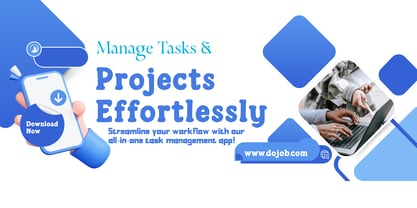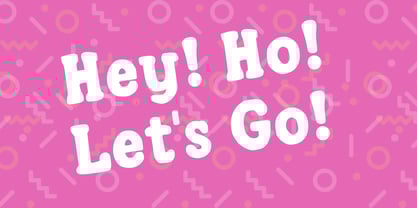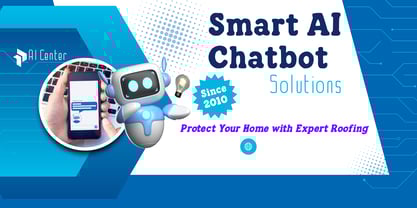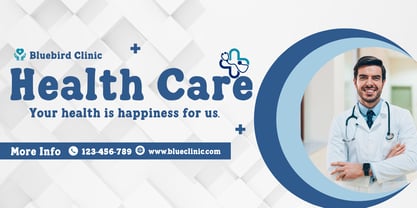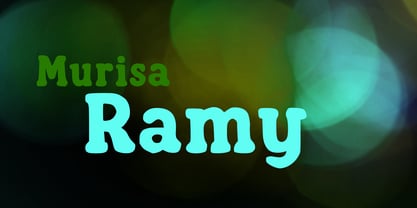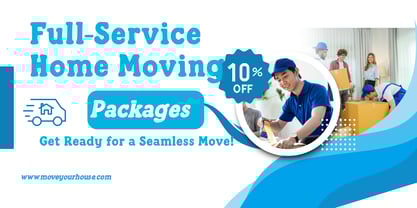
Murisa Ramy
🔥 Murisa Ramy – Bold Expression Meets Playful Precision
Murisa Ramy is a graffiti-inspired display font that blends bold character with playful elegance. Designed with rounded contours and a confident stance, this typeface brings a unique personality to any creative project. Whether you're crafting urban fashion designs, eye-catching posters, or standout branding, Murisa Ramy delivers impact with style.
✨ Features:
• Full uppercase & lowercase alphabet
• Clean, stylized numerals (0–9)
• Bold rounded style for maximum legibility and visual punch
• Perfect for logos, apparel, packaging, posters, and digital art
• Supports Eastern European languages (including Polish, Czech, Slovak, Hungarian, Romanian, Croatian, and more)
🌍 Language Support:
Murisa Ramy includes extended Latin characters, making it compatible with a wide range of European languages—including Eastern European scripts. This ensures your message stays clear and stylish across borders.